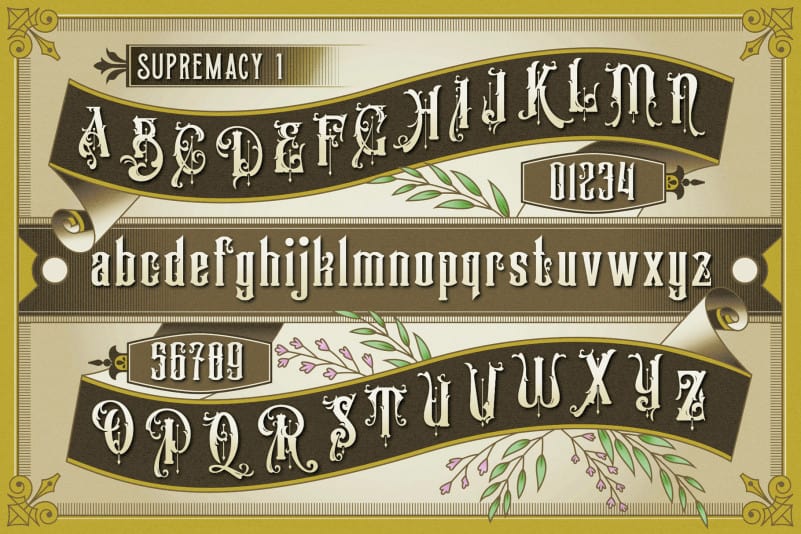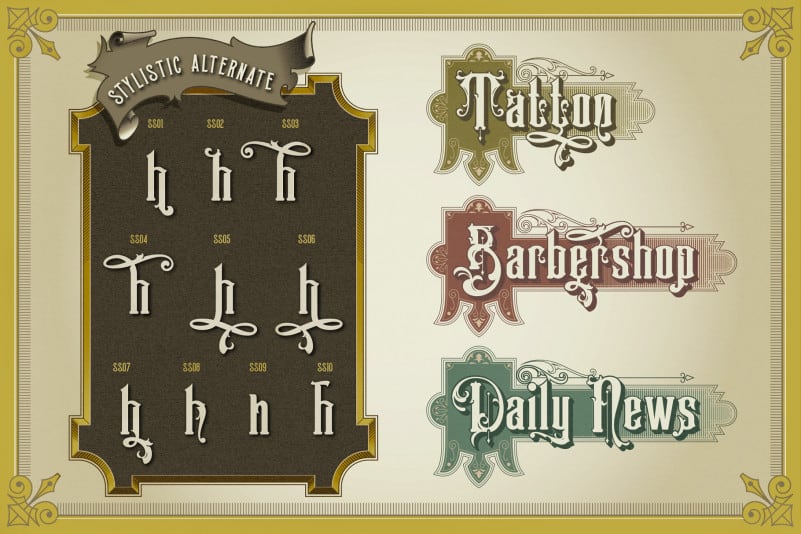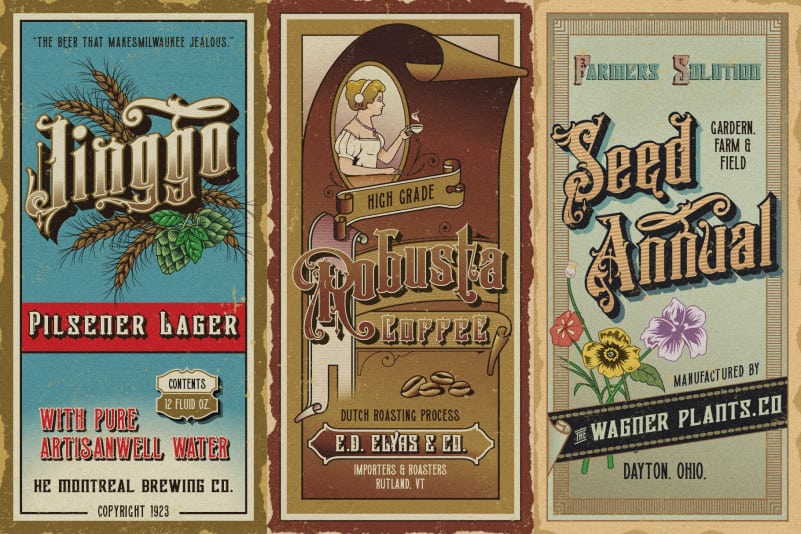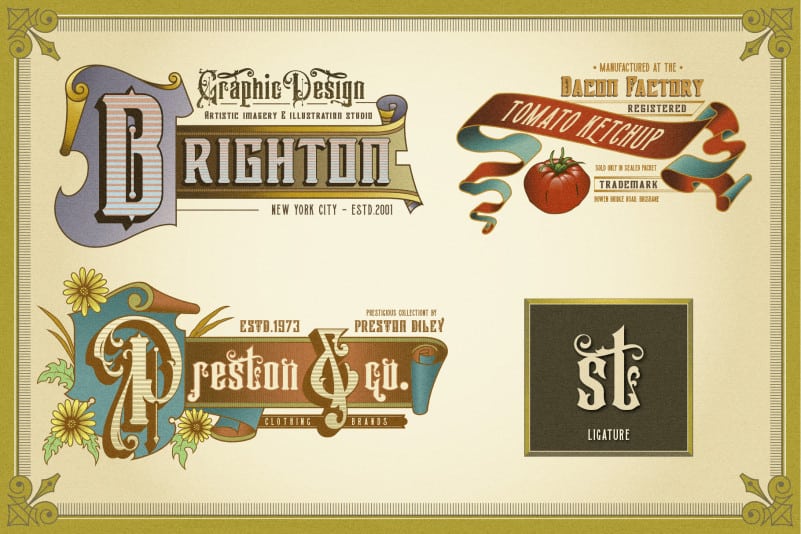
Victorian Supremacy Display Font
Victorian Supremacy Display Font offers an expansive set of options, making it the perfect choice for books, magazines, packaging, branding and signage. From period style and Victorian to modern and elegant, Victorian Supremacy is strong and stately, yet elegant and decorous.